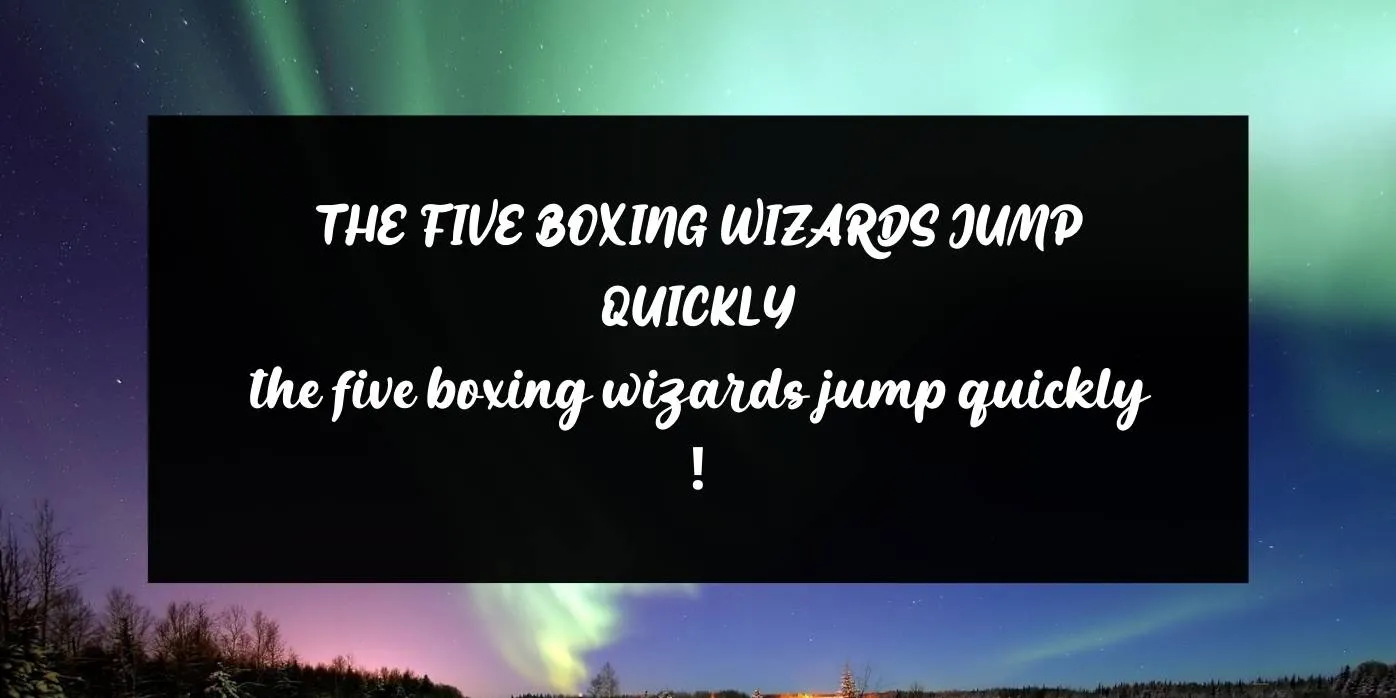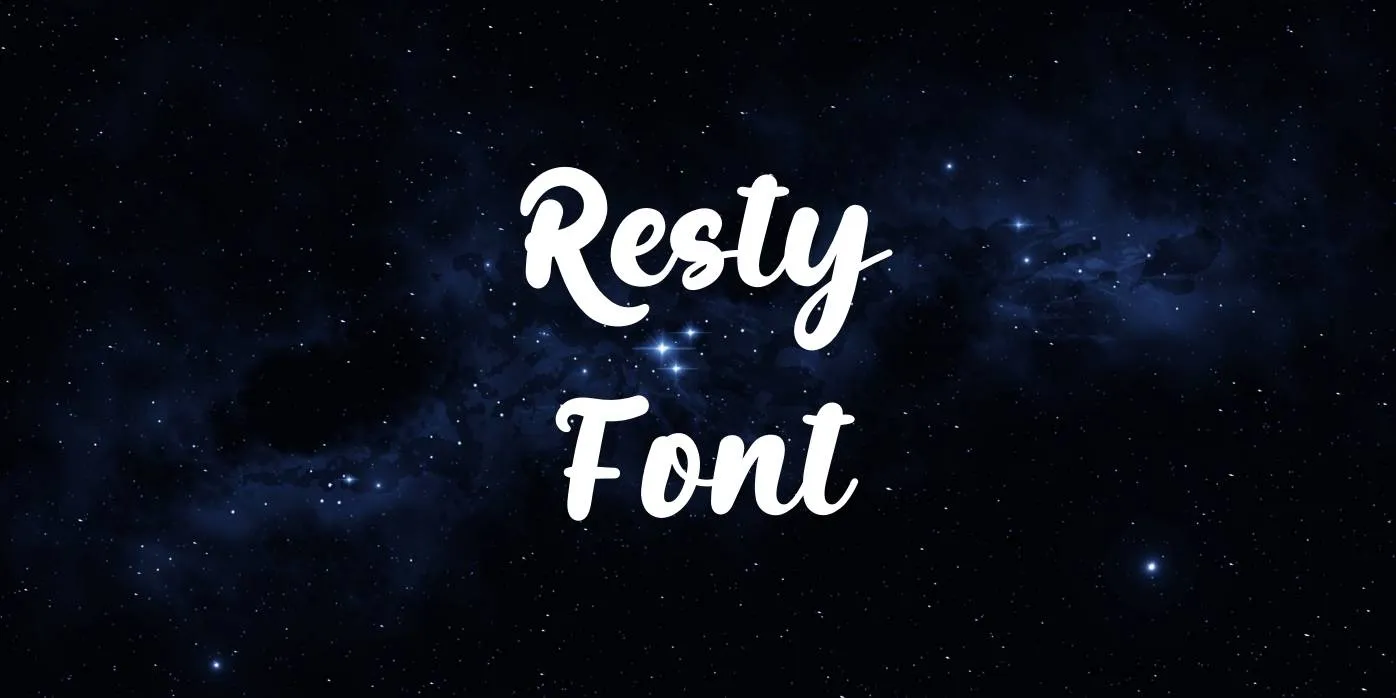
Resty Font
Here we discuss brief information about the Resty Font. It was launched by a famous designer named C.J Dunn in 2017. It is available in three unique types of weights regular, italic, and bold. The Resty font has many features and supports many languages.
It is also a script font that can be used to make small texts. This font is a bold script font that provides the framework that meets your needs. If you see the image of this font, the first word that comes to your mind must be that it looks very classy. Its look is very elegant and smooth which gives your project a very decorative look.
The online generator tool provides a facility so you can edit, change, or check your text before using it on your project. It has a very broad and narrow curve style which looks very decorative on your project. This font supports file type TTF (TrueType format). Usage This tyepface has many amazing features in it.
It can be used in many projects because of its classy and beautiful style which takes less time in writing projects. You can also use it by pairing it with other fonts like hungry fox font to get a nicer look for your project and then it can also be used in Canva,  Adobe Photoshop, and CSS. This stunning font can be used in the logotype and in headlines. This font can also be used for making the front page of novels or magazines.
It was launched by a designer named C.J. Dunn in 2017. The style of the font is very classy so it looks very elegant in your project. Is Resty Font be used for the magazine cover?
This texture is very classy in its looks and yes it can be used for making magazine covers very attractive in looks. What file extension is used for Resty Type Font? It supports TTF (TrueType Format). It is a very decorative and beautiful font and can be used in many projects.